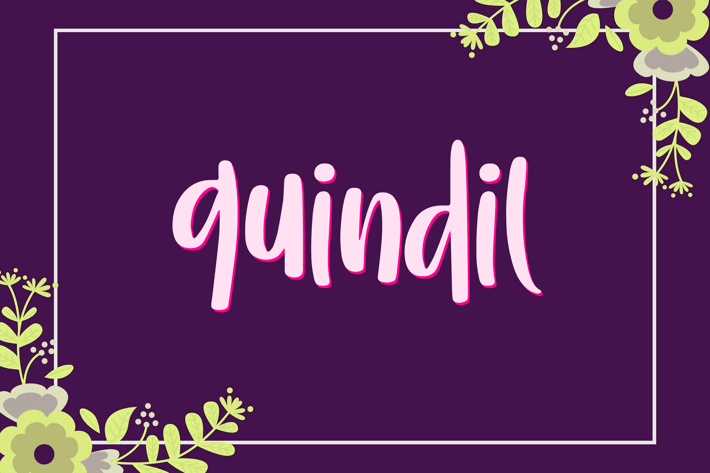
Quindil Typeface
Quindil is a cool and playful display font. It is the best choice for creating eye-catching branding, logos, and quotes. Every letter has a beautiful and unique touch, which will make your designs come alive.
Quindil includes a complete set of uppercase and lowercase letters, as well as numbers, and punctuation.